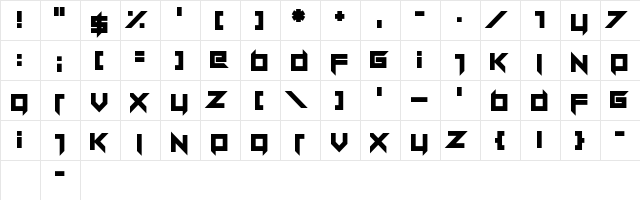
Dillydallier Straight Regular
| Designer | Allison JJ |
Design Context for Dillydallier Straight Typeface
Dillydallier Straight is a composed and adaptable typeface that performs quietly and consistently across a wide range of design contexts.